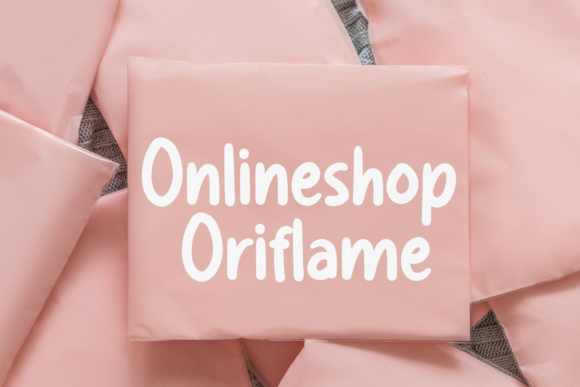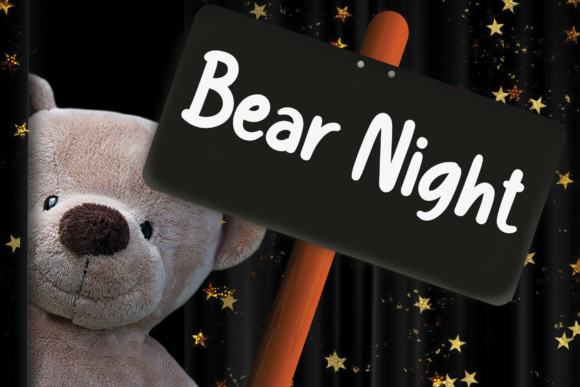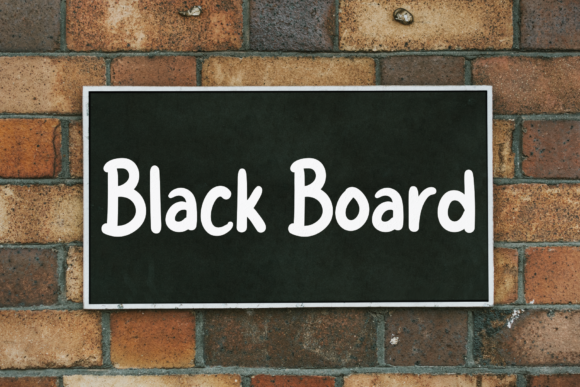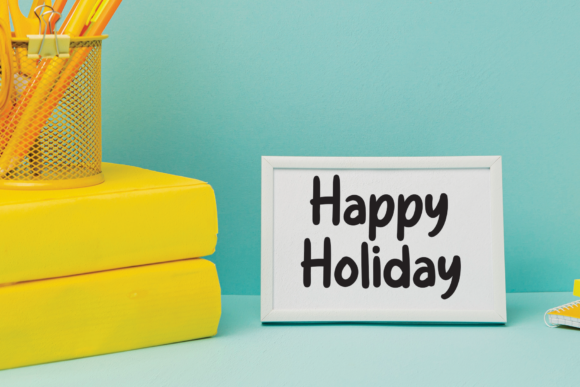
Introducing Education Childsmart Font: The Perfect Choice for Kids’ Designs
Are you a designer or crafter looking for a font that can add a playful touch to your children’s themed designs? Look no further than Education Childsmart Font! This adorable font is designed to bring a sense of joy and fun to your projects, making it perfect for kids’ educational materials, crafts, and more.
What is Education Childsmart Font?
Education Childsmart Font is a cute, jolly, and paint-brushed display font that is specifically designed for children’s themed designs. With its playful and energetic vibe, this font is sure to capture the attention of kids and make your designs stand out. Whether you’re creating educational materials, crafts, or marketing materials for kids, Education Childsmart Font is the perfect choice.
Key Features of Education Childsmart Font
- Cute and Playful Design: Education Childsmart Font features a unique and adorable design that is sure to delight kids and parents alike.
- Paint-Brushed Effect: The font’s paint-brushed effect gives it a fun and hand-crafted look that is perfect for kids’ designs.
- Display Font: Education Childsmart Font is a display font, making it perfect for headlines, titles, and other prominent text elements.
- Bright and Bold: This font is designed to be paired with bright colors, making it perfect for kids’ designs that require a pop of color.
Why Choose Education Childsmart Font?
There are many reasons why Education Childsmart Font stands out from other fonts. Here are just a few:
- Unique Design: Education Childsmart Font features a unique design that is sure to set your designs apart from others.
- Kids’ Appeal: The font’s playful and cute design is sure to appeal to kids, making it perfect for kids’ educational materials and crafts.
- Versatility: This font can be used for a wide range of design projects, from educational materials to crafts and marketing materials.
How to Use Education Childsmart Font
Using Education Childsmart Font is easy! Here are just a few tips to get you started:
- Pair with Bright Colors: Education Childsmart Font is designed to be paired with bright colors, so don’t be afraid to get creative with your color palette.
- Use for Headlines and Titles: This font is perfect for headlines and titles, so use it to add a playful touch to your designs.
- Experiment with Different Sizes: Education Childsmart Font looks great in a variety of sizes, so experiment with different sizes to find the one that works best for your design.
Design Ideas Using Education Childsmart Font
Here are just a few design ideas to get you started:
- Kids’ Educational Materials: Use Education Childsmart Font to create fun and engaging educational materials for kids, such as worksheets, activity sheets, and more.
- Crafts and DIY Projects: This font is perfect for crafts and DIY projects, such as making cards, gift tags, and other handmade items.
- Marketing Materials: Use Education Childsmart Font to create marketing materials for kids’ products or services, such as brochures, flyers, and more.
Education Childsmart Font is a unique and playful font that is perfect for kids’ designs. With its cute and jolly design, paint-brushed effect, and bright and bold style, this font is sure to capture the attention of kids and make your designs stand out. Whether you’re a designer or crafter, Education Childsmart Font is a great choice for any kids’ themed design project.